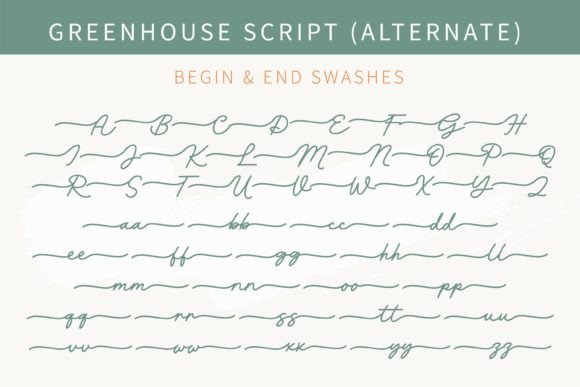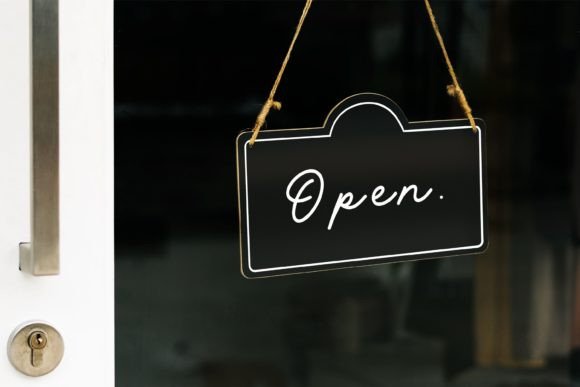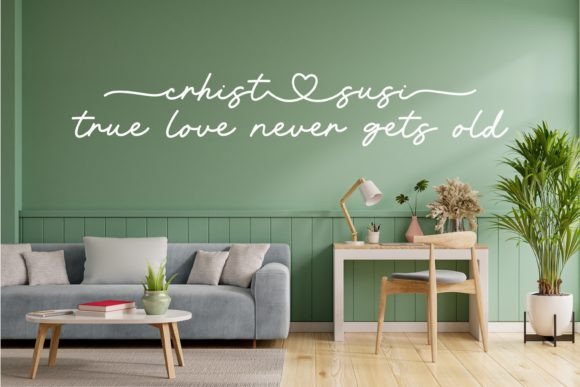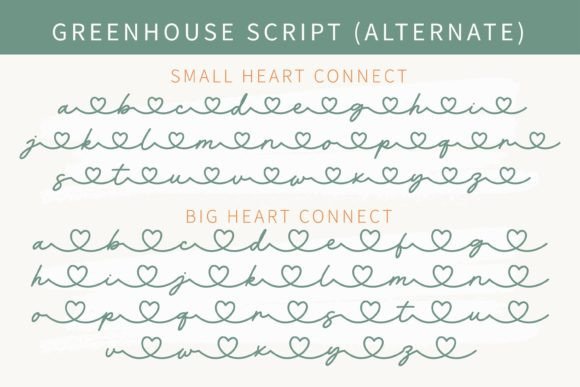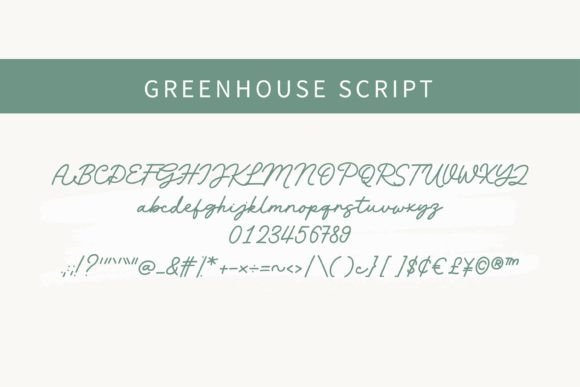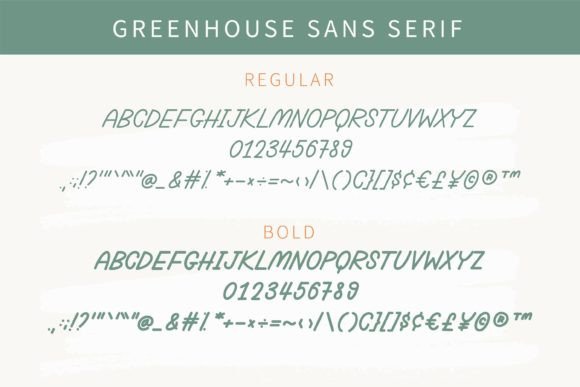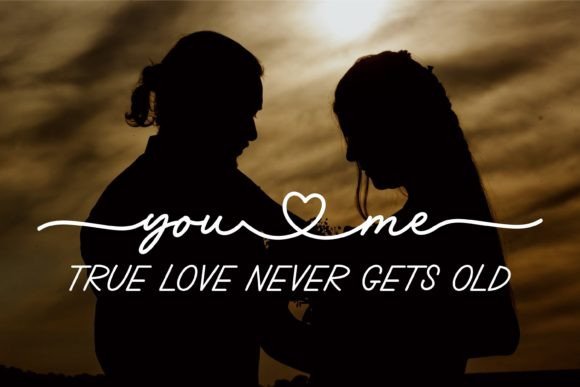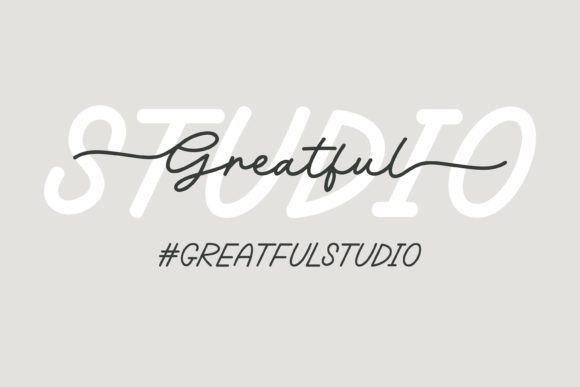
“Greenhouse” is more than just a font; it’s a duo-styled handwritten typeface that exudes both charm and delicacy. This versatile font has the power to turn any creative idea into a standout masterpiece. Whether you’re working on Christmas cards, wedding designs, local signs, branding, logos, quotes, photography projects, birthday cards, or any other creative venture, “Greenhouse” is the perfect choice.
The duo-styled design of “Greenhouse” adds a dynamic and expressive quality to your text. Its handwritten charm creates a personalized touch, making your designs more engaging and visually appealing.
Imagine “Greenhouse” gracing your Christmas cards, adding a warm and festive touch to your holiday greetings. The font’s versatility allows it to adapt seamlessly to different design contexts, making it suitable for a wide range of festive projects.
For wedding designs, “Greenhouse” becomes a key element in creating a romantic and delicate atmosphere. Its charming style enhances invitations, stationery, and other elements with a touch of elegance.
In local signs and branding, “Greenhouse” stands out as a font that captures attention and communicates a friendly and approachable vibe. Its versatility allows it to complement a variety of visual identities.
Whether you’re working on logos, quotes, or photography projects, “Greenhouse” serves as a design companion that brings a touch of creativity and individuality. Its ability to convey charm and delicacy makes it a valuable asset for adding character to your creations.
In essence, “Greenhouse” is more than just a font; it’s a design tool that elevates your projects with its charming and delicate qualities. Let “Greenhouse” be the typeface that turns your creative ideas into standout pieces, making a lasting impression on your audience.